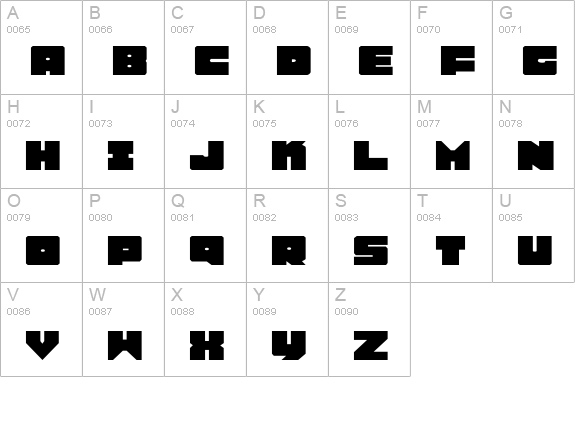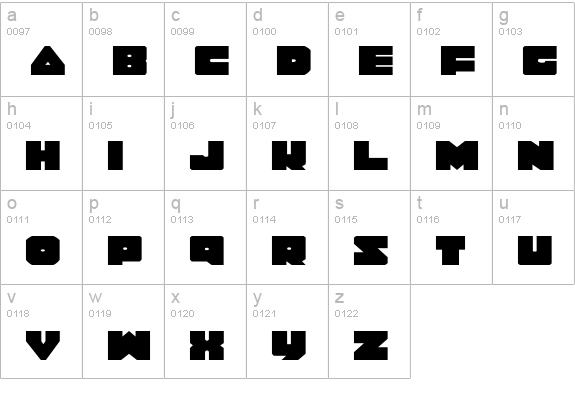
Lobo Tommy Expanded is a distinctive, extended-width variant in the Lobo typeface family \xE2\x80\x94 well suited to design and typography projects.
Introducing Lobo Tommy Expanded font, a bold and stylish typeface designed to make a statement. With its eye-catching design and modern aesthetic, this font is perfect for projects that require a touch of sophistication and elegance. The extended letterforms add a unique flair to any design, making it stand out from the crowd. What's even better is that Lobo Tommy Expanded font is free to download at FontsMarket.com. Yes, you read that right - you can get your hands on this stunning font without having to spend a dime. Whether you're working on a branding project, a poster design, or any other creative endeavor, Lobo Tommy Expanded font is sure to elevate your work to the next level. Don't miss out on the opportunity to enhance your designs with this versatile and stylish font. Download Lobo Tommy Expanded font today and let your creativity shine!